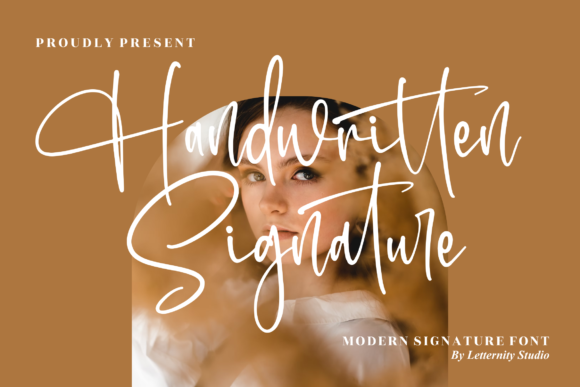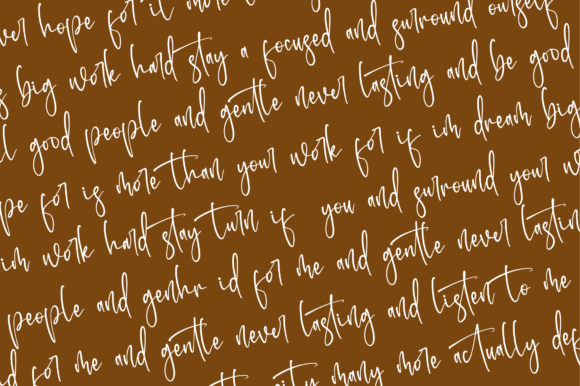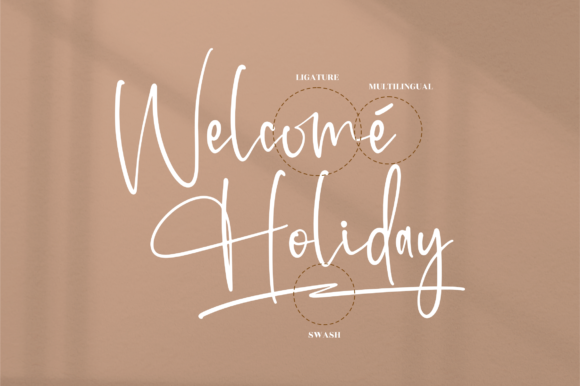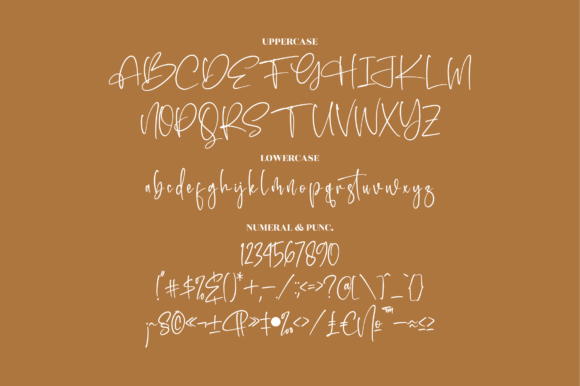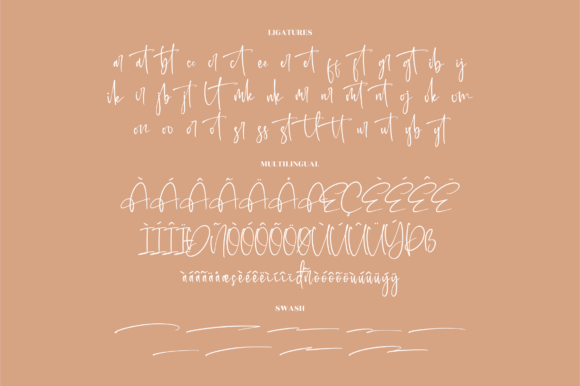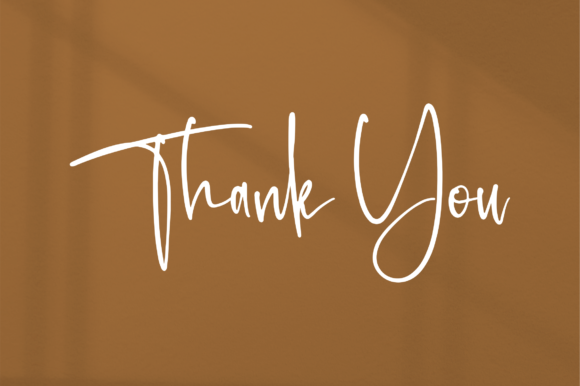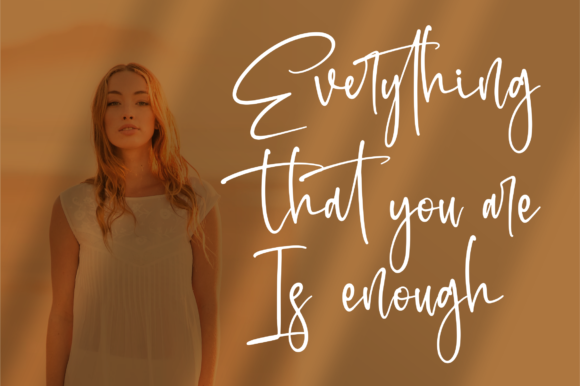
Handwritten Signature Font
About Handwritten Signature Font
Handwritten Signature is an elegant script font with a contemporary atmosphere and impeccable form, inspired by timeless classic calligraphy. This font is PUA encoded which means you can access all glyphs and swashes with ease!